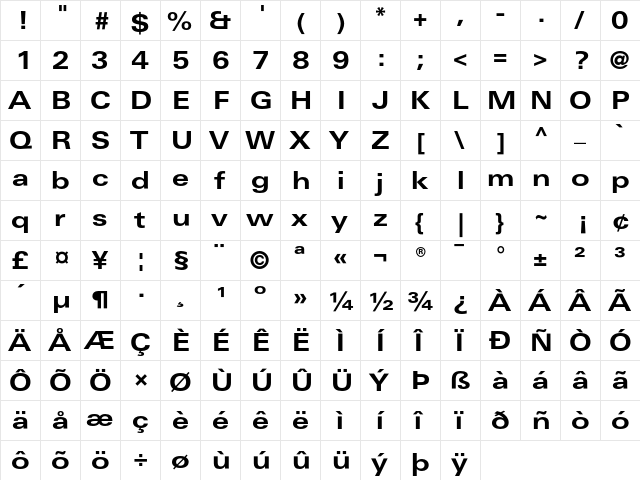
LinotypeUnivers ExtdBold Font Preview
LinotypeUnivers ExtdBold
Design Context for LinotypeUnivers Typeface
LinotypeUnivers takes a measured approach to typography — its balanced proportions and neutral character make it a reliable workhorse for both digital and print work. The heavy weight commands attention and anchors typographic hierarchies.